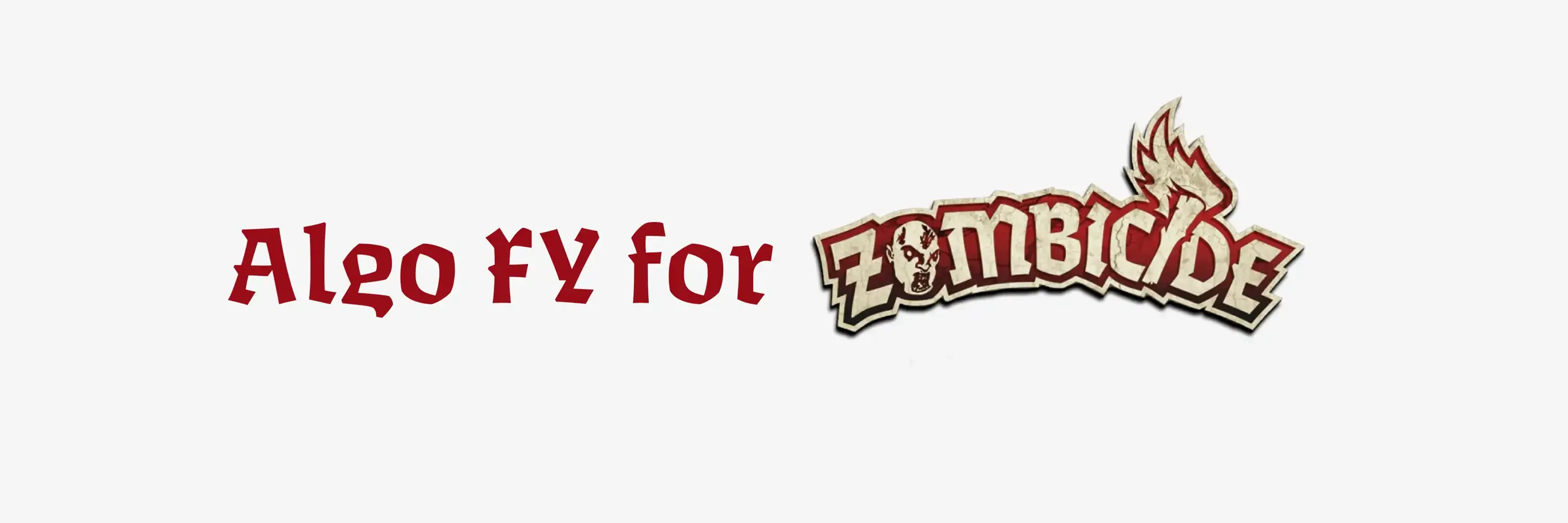
Algo FY for Zombicide
The Perfect Match: Algo FY and Fantasy Zombicide
The Zombicide games have incorporated the Algo FY font into their design for the Fantasy Zombicide games. This font is prominently used across various elements such as titles, game cards, manuals, and the Zombicide logo used on the Fantasy games.
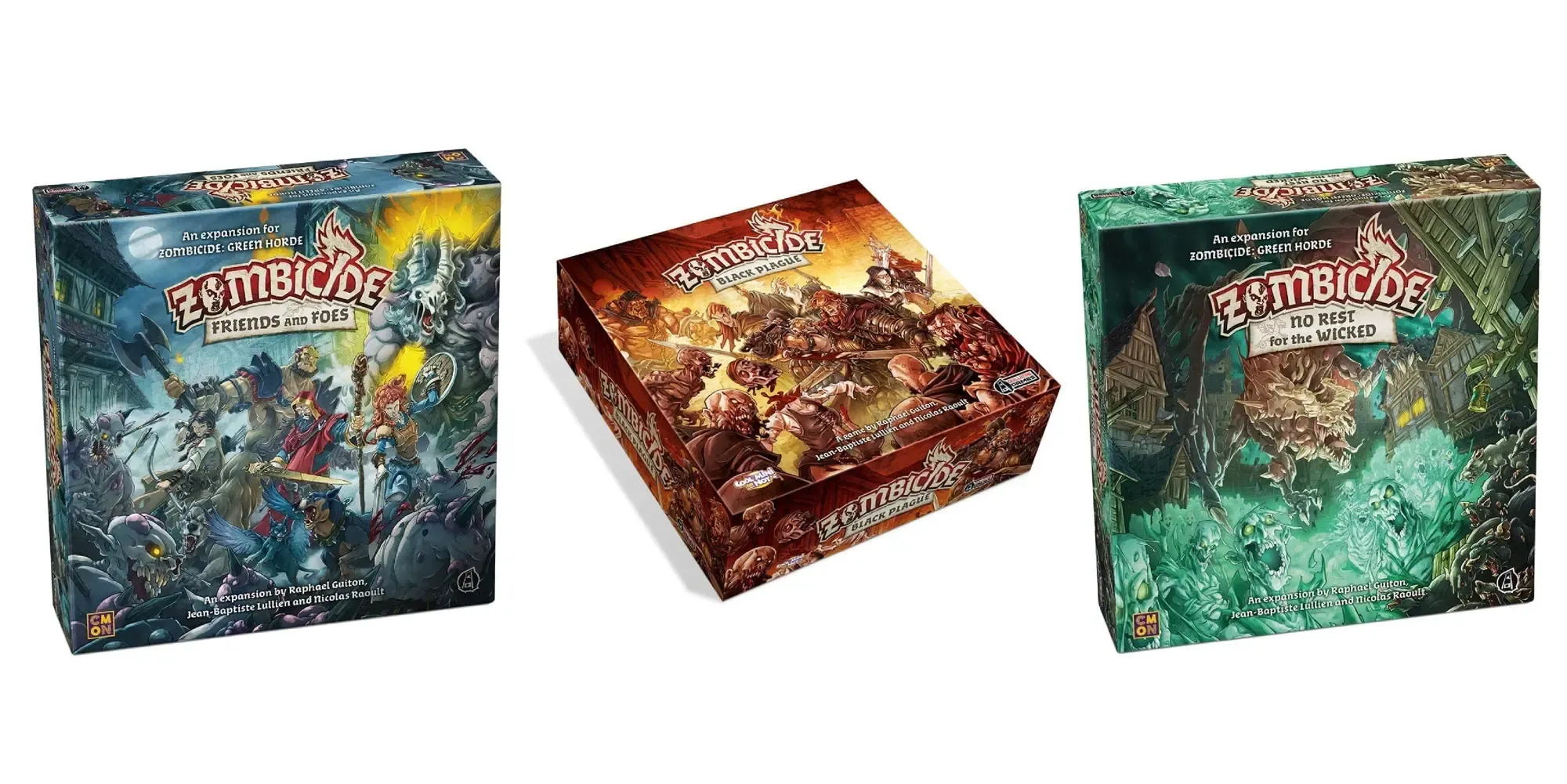
Why Algo FY
Blackletter design: Algo FY’s design merges blackletter aspects with calligraphic shapes, making it an adaptable choice for various visual needs. With its three weights being carefully designed and the differentiated in- and outstroke’s, Algo FY is a sculptural, rustic, primitive and dynamic font family.
Spontaneous and Unpredictable: The alternating game between concave and convex shapes gives this typeface a spontaneous and unpredictable style, with a strong personality.
Mystical: The font has an antique and mystical appearance, which can enhance the fantasy and medieval themes common in fantasy games. The font aligns with the rich, fantastical themes of their game.
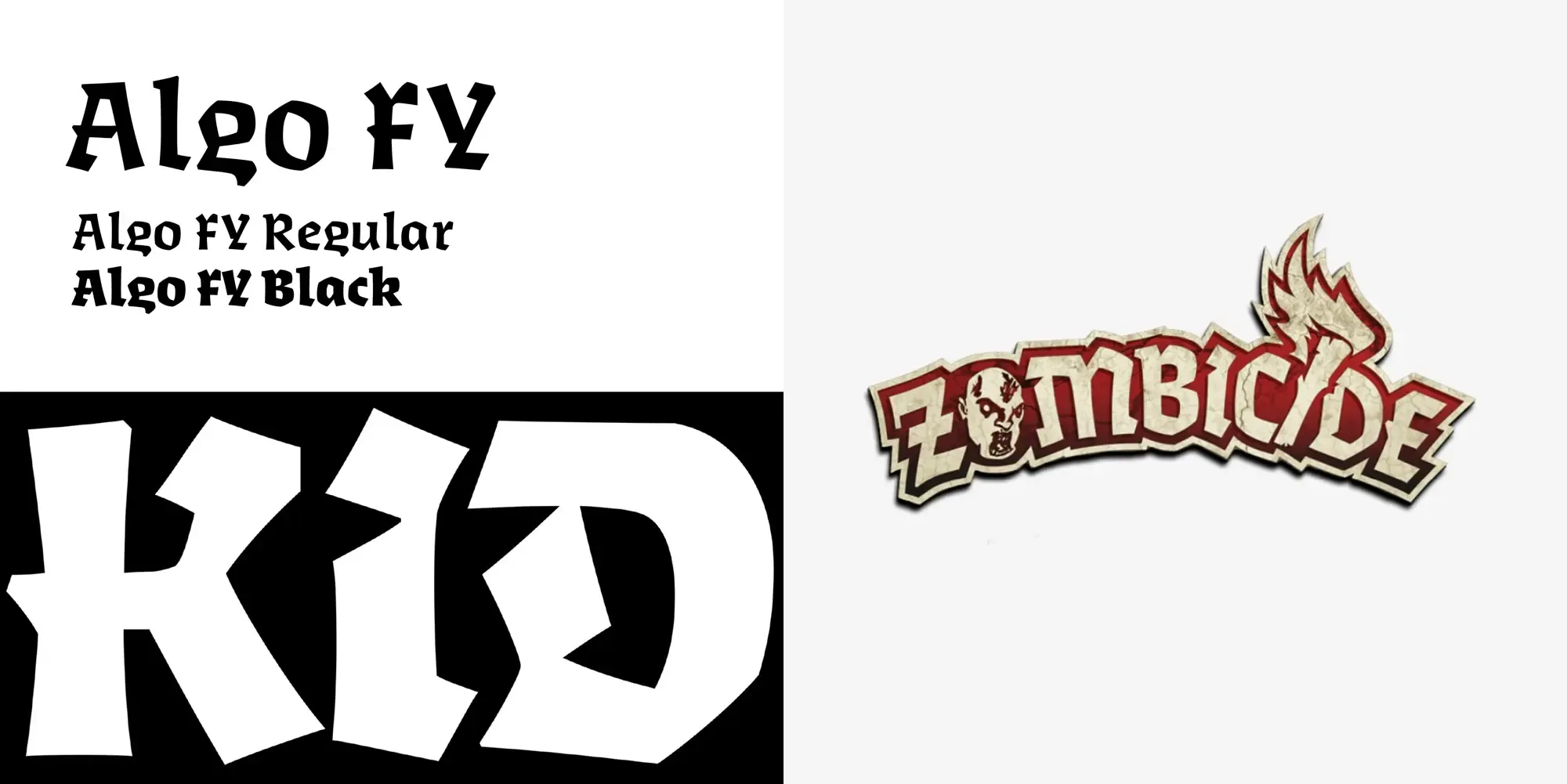
Algo FY in Action
Titles and Headings: The bold and striking appearance of Algo FY in the titles grabs attention, setting the tone for the game’s epic adventures.
Game Cards and Manuals: The font’s readability aids players in quickly understanding game mechanics, enhancing the gaming experience.
Fantasy Zombicide Logo: The custom version of the logo using Algo FY emphasizes the fantasy aspect, making it stand out among other Zombicide editions.
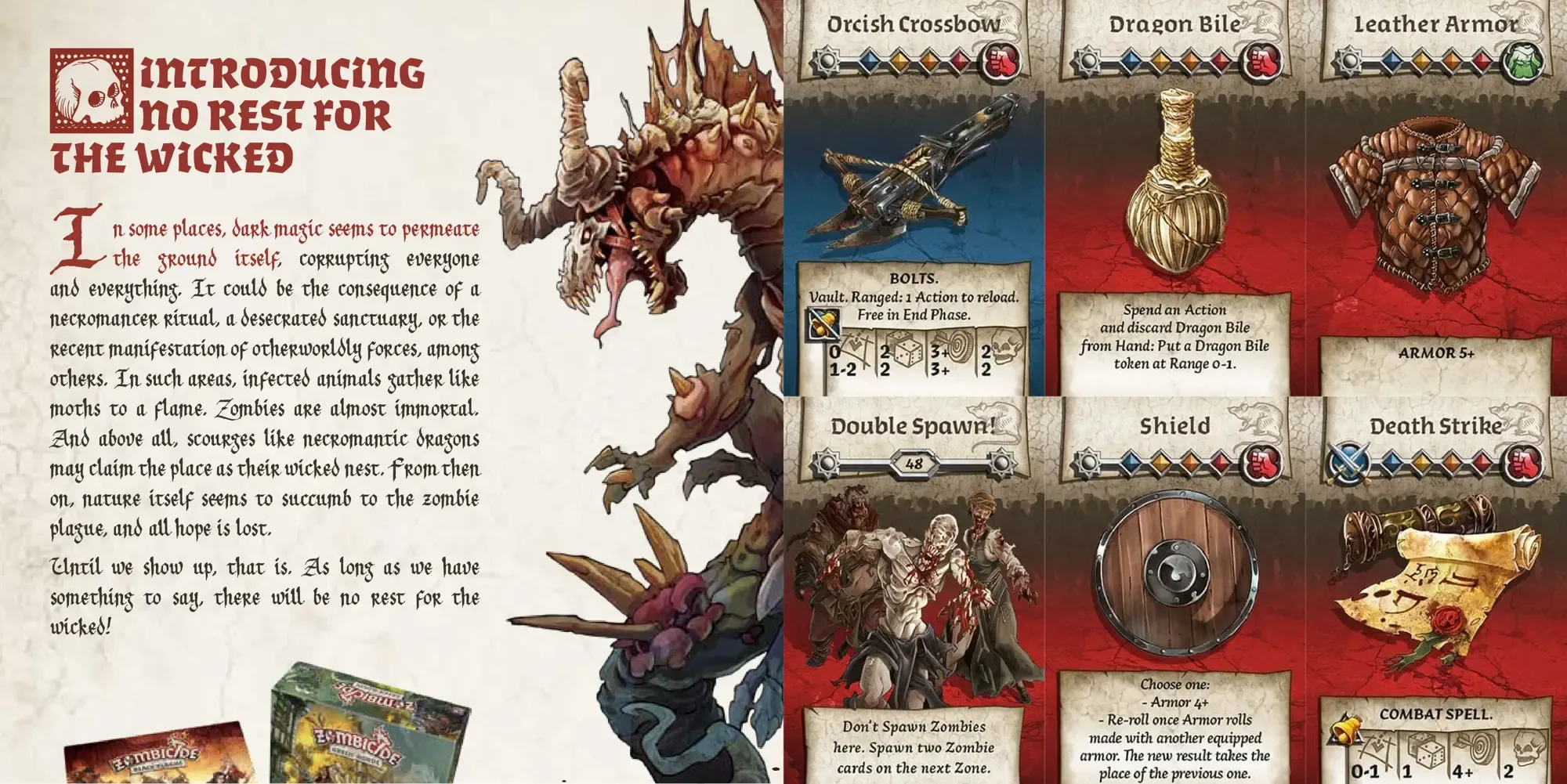
Conclusion
The integration of Algo FY into Fantasy Zombicide exemplifies how a font can enhance both functionality and aesthetic appeal. From game titles to detailed manuals, Algo FY proves to be a versatile and effective choice, contributing significantly to the game’s immersive fantasy world. By using Algo FY for their ‘Fantasy’ logo as well the font ties together the whole design.